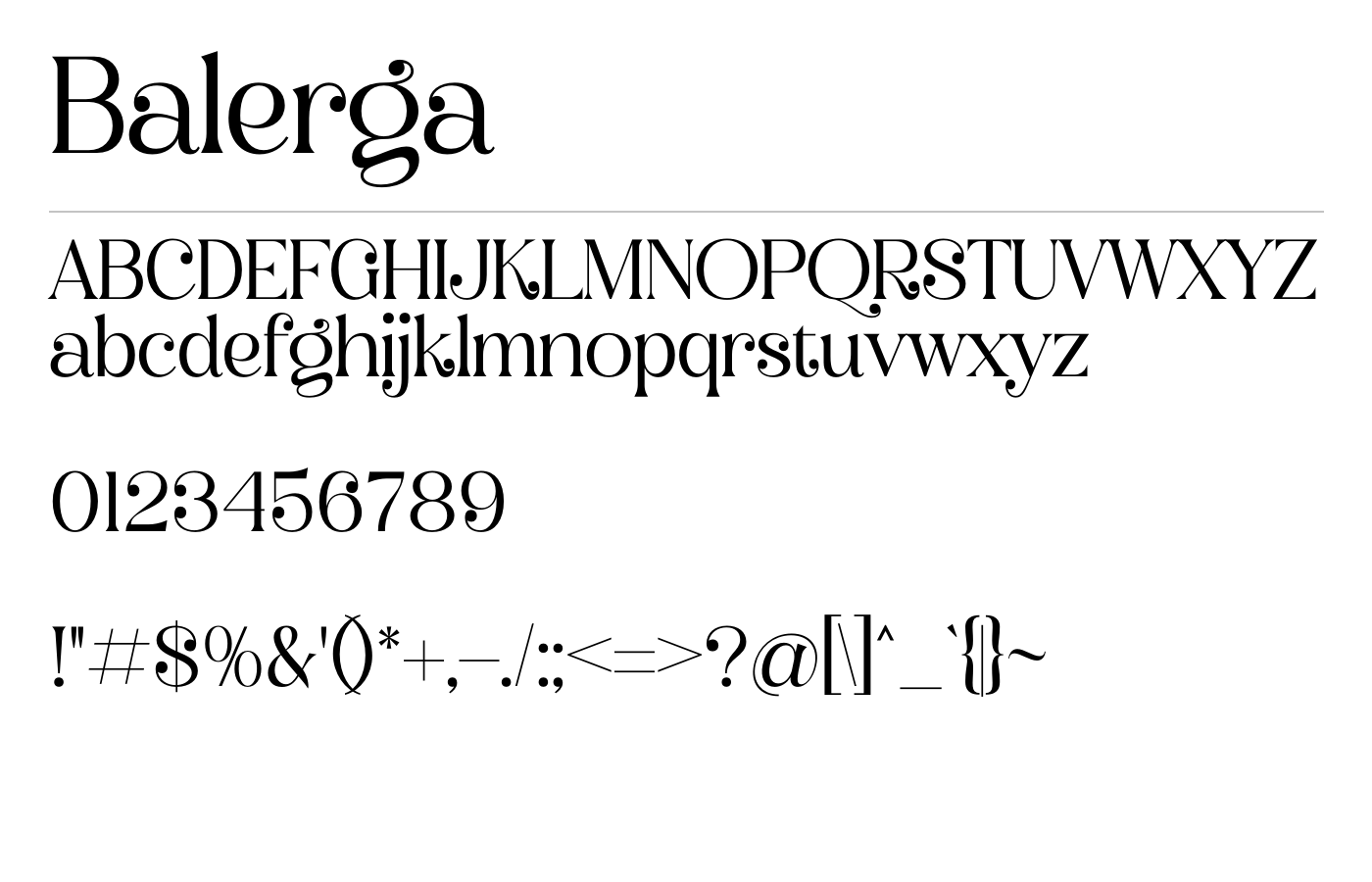
Balerga is a stylish serif font with a refined, high-contrast design that blends modern elegance with classic charm. Its distinctive curled terminals and delicate stroke contrasts give it a unique, sophisticated personality, making it ideal for luxury branding, editorial headlines, and fashion-focused projects that seek to convey both creativity and prestige. This font works well in display settings where its artistic details can shine and add an upscale, memorable touch.
Balerga Font
About Balerga Font